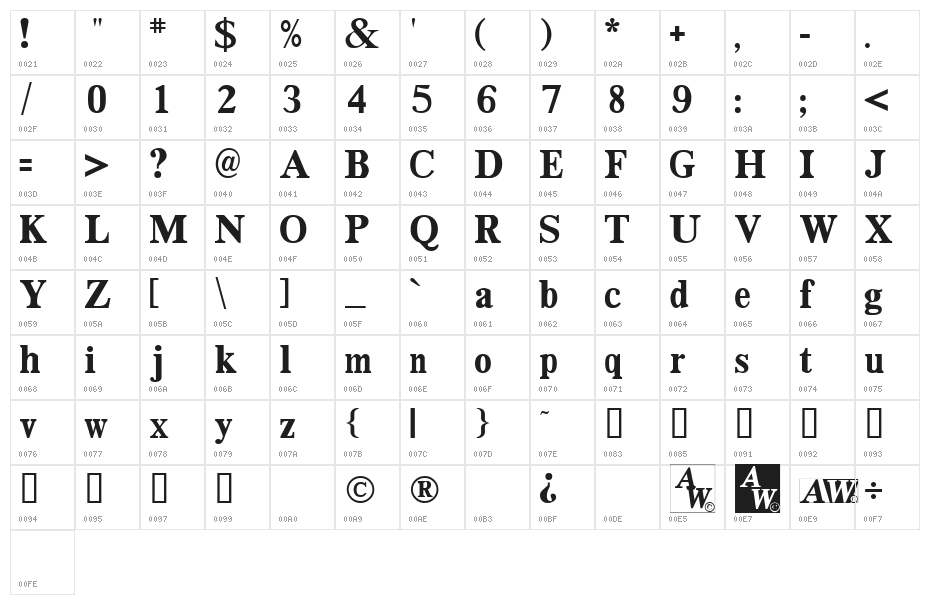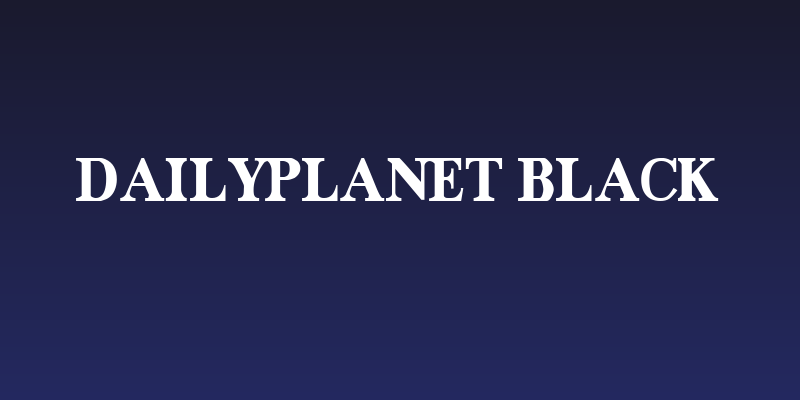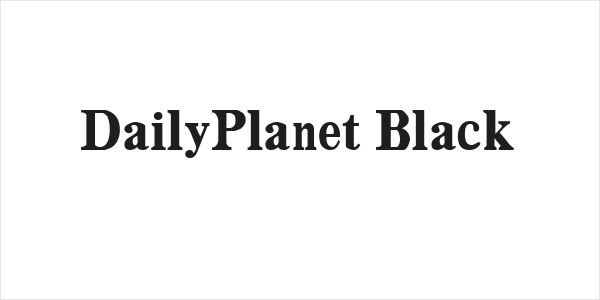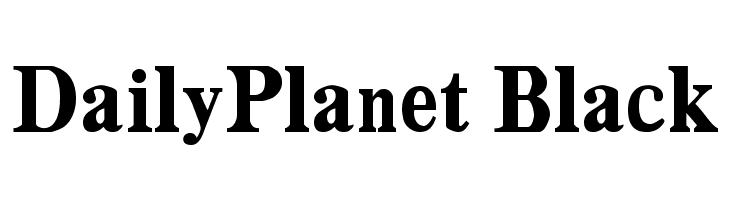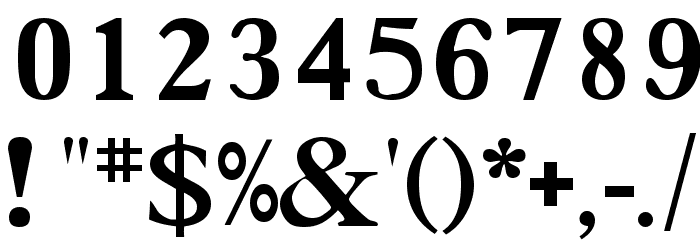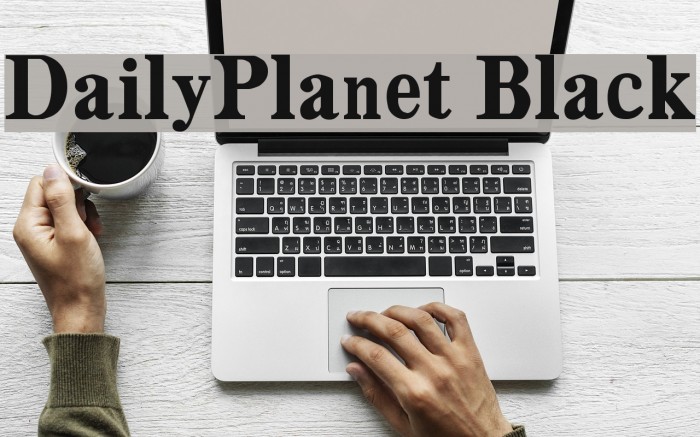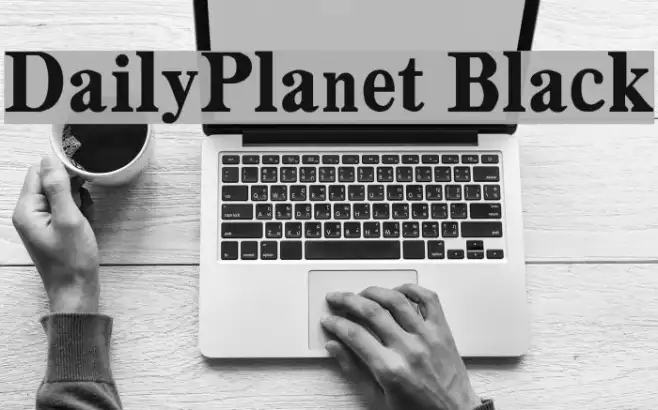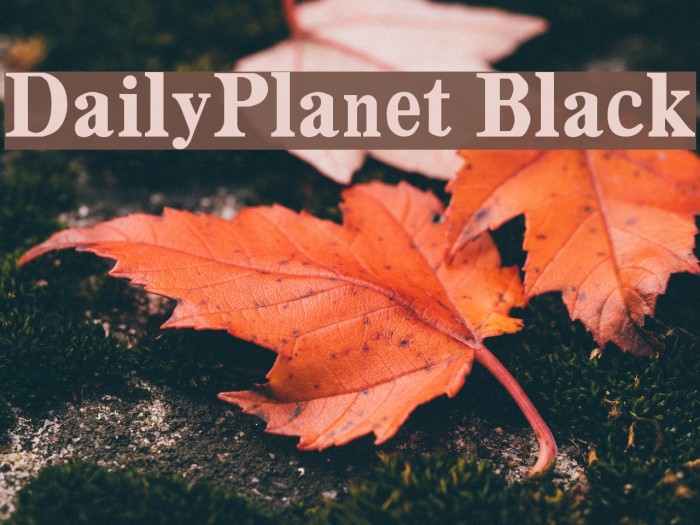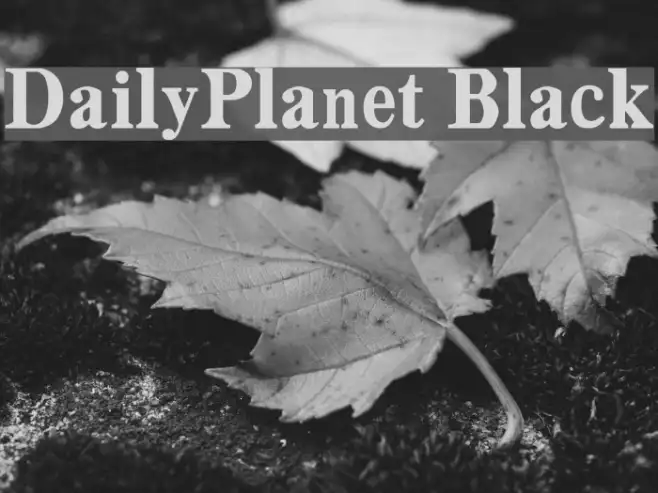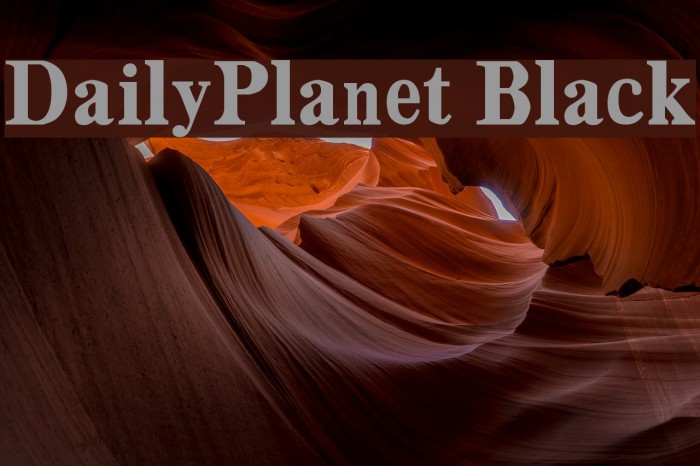
DailyPlanet Black Font
DailyPlanet Black Description
This font features a bold and authoritative presence, characterized by its strong, thick strokes and high contrast between thick and thin lines. The serifs are pronounced, adding a classic touch to the overall design. The uppercase letters are robust and commanding, while the lowercase letters maintain a consistent weight, ensuring readability. The numerals are clear and distinct, making them suitable for various applications. Special characters are well-defined, complementing the overall aesthetic. This font exudes a sense of tradition and reliability, making it ideal for projects that require a formal and impactful appearance.